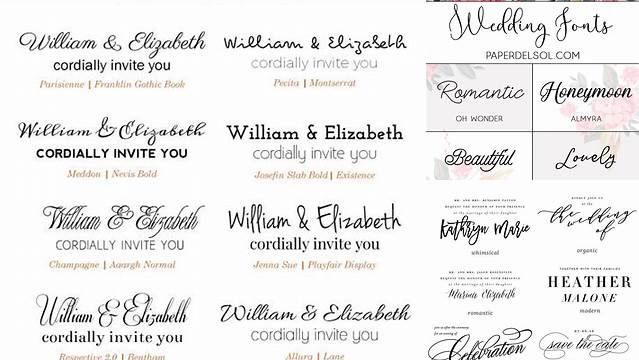
Elegant Wedding Fonts: A Google Fonts Guide
Choosing the right fonts for your wedding invitations is a crucial step in setting the tone for your big day. The typography you select can convey your wedding's style, from classic and elegant to modern and chic. With Google Fonts, you have access to a vast library of free, high-quality fonts that can help you create stunning wedding invitations without breaking the bank. In this guide, we'll explore some of the best Google Fonts for wedding invitations, offering tips and examples to inspire your choices. Let's dive in and discover how to make your invitations truly special, guys!
Why Choose Google Fonts for Your Wedding Invitations?
When planning a wedding, costs can quickly add up. Using Google Fonts is a fantastic way to save money without sacrificing quality. These fonts are not only free but also professionally designed and optimized for both print and digital use. This means your invitations will look beautiful whether they're printed on paper or viewed online. The variety available within Google Fonts is another significant advantage. Whether you're aiming for a traditional, romantic feel or a contemporary, minimalist look, you'll find fonts that fit your vision. Furthermore, Google Fonts are easy to access and use, making the design process smoother and more enjoyable. You can experiment with different font pairings and styles to achieve the perfect look for your wedding stationery. Remember, your invitations are the first glimpse your guests get of your wedding, so choosing the right fonts is essential to making a great first impression. Plus, using free resources like Google Fonts allows you to allocate more of your budget to other important aspects of your wedding, such as the venue, catering, or flowers. So, let's explore the world of Google Fonts and find the perfect typography to tell your unique love story!
Best Google Fonts for Wedding Invitations
Selecting the perfect fonts for your wedding invitations can feel overwhelming, given the plethora of options available. However, focusing on a few key styles can make the process more manageable. Here are some of the best Google Fonts categorized by style to help you create stunning invitations:
Elegant & Classic Fonts
For couples seeking a timeless and sophisticated look, classic fonts are an excellent choice. These fonts often feature elegant serifs and graceful curves, lending a touch of formality to your invitations. Some top picks include:
- Playfair Display: This font exudes elegance with its high contrast and delicate serifs. It’s perfect for headings and titles, adding a touch of luxury to your invitations. Pairing Playfair Display with a simpler sans-serif font for the body text can create a balanced and refined look. Imagine the names of the couple beautifully scripted in Playfair Display, immediately conveying a sense of classic romance and sophistication. It's a font that speaks volumes without being overly ornate, making it ideal for traditional weddings.
- EB Garamond: A revival of a classic typeface, EB Garamond offers a refined and scholarly aesthetic. Its elegant letterforms make it suitable for both headings and body text, ensuring readability while maintaining a sophisticated appearance. The subtle serifs and balanced proportions of EB Garamond contribute to a timeless feel, perfect for couples who appreciate understated elegance. Envision the entire invitation suite crafted in EB Garamond, from the save-the-dates to the thank-you notes, creating a cohesive and polished look that will impress your guests.
- Great Vibes: This beautifully flowing script font is perfect for adding a touch of romance and whimsy to your invitations. Use it for names, dates, or other important details to create a visually stunning effect. Great Vibes is particularly effective when used sparingly, allowing its elegance to shine without overwhelming the rest of the design. Think of the bride and groom's names gracefully intertwined in Great Vibes, setting a romantic tone for the entire celebration. It's a font that truly captures the joy and excitement of a wedding day.
Modern & Minimalist Fonts
If you're planning a contemporary wedding, minimalist fonts can help you achieve a clean and stylish look. These fonts typically feature sans-serif designs with clean lines and a focus on readability. Here are a few favorites:
- Montserrat: A versatile sans-serif font, Montserrat is known for its clean and geometric design. It works well for both headings and body text, providing a modern and sophisticated feel. The simplicity of Montserrat makes it a great choice for couples who prefer a minimalist aesthetic. Imagine a sleek invitation design using Montserrat for all the text elements, creating a cohesive and contemporary look that reflects a modern love story. It's a font that embodies understated elegance and timeless appeal.
- Raleway: With its elegant and slightly condensed letterforms, Raleway is another excellent choice for modern wedding invitations. It's particularly well-suited for headings and subheadings, adding a touch of sophistication without sacrificing readability. Raleway offers a subtle elegance that makes it ideal for couples who want a modern yet refined look. Think of using Raleway for the couple's names and wedding details, paired with a simpler sans-serif font for the body text, achieving a balanced and stylish design that will impress your guests.
- Open Sans: A highly readable and versatile font, Open Sans is a great option for body text. Its clean and simple design ensures that your invitations are easy to read, while its modern aesthetic complements a variety of styles. Open Sans is a workhorse font that can be used for virtually any type of wedding invitation, making it a reliable choice for couples who prioritize clarity and readability. Envision the bulk of your invitation text set in Open Sans, ensuring that all the essential details are conveyed clearly and effectively, while the overall design remains clean and modern.
Romantic & Whimsical Fonts
For couples who want to infuse their invitations with a touch of romance and whimsy, script and handwritten fonts are ideal. These fonts add a personal and intimate feel to your stationery. Consider these options:
- Mrs Saint Delafield: This elegant script font exudes romance and sophistication. It's perfect for adding a personal touch to your invitations, especially for names and headings. The flowing letterforms of Mrs Saint Delafield create a sense of timeless beauty, making it an excellent choice for couples who want to evoke a classic love story. Imagine the bride's name beautifully scripted in Mrs Saint Delafield, adding a touch of grace and elegance to the invitation. It's a font that captures the essence of romance and celebration.
- Parisienne: A stylish and flowing script font, Parisienne adds a touch of French elegance to your wedding invitations. Its delicate curves and graceful letterforms make it perfect for creating a romantic and whimsical feel. Parisienne is ideal for couples who want to infuse their invitations with a touch of Parisian charm. Think of using Parisienne for the wedding date and location, adding a touch of sophistication and whimsy to the overall design. It's a font that transports your guests to a world of romance and beauty.
- Italianno: This beautiful script font has a slightly more casual and playful feel than some of the other options, making it perfect for a relaxed or bohemian wedding. Italianno adds a touch of personality to your invitations, creating a warm and inviting atmosphere. Imagine using Italianno for the RSVP details, adding a friendly and approachable touch to the invitation. It's a font that reflects the joy and informality of a celebration among loved ones.
Tips for Pairing Google Fonts
Choosing two or three fonts that complement each other can significantly enhance the visual appeal of your wedding invitations. Here are some tips for effective font pairing:
- Contrast is Key: Pair a serif font with a sans-serif font to create visual interest. For example, use Playfair Display (serif) for headings and Montserrat (sans-serif) for body text. This contrast helps to distinguish different elements of your invitation and makes it more engaging to read. The combination of a classic serif font with a modern sans-serif font creates a balanced and harmonious design.
- Consider Hierarchy: Use different font sizes and weights to establish a clear hierarchy on your invitations. Headings should be larger and bolder than body text, and important details like the date and time should stand out. This helps guests quickly find the information they need and ensures that your invitations are easy to navigate. A well-defined hierarchy enhances readability and visual appeal.
- Limit Your Choices: Stick to two or three fonts at most to avoid a cluttered look. Too many fonts can make your invitations appear disorganized and overwhelming. Limiting your choices creates a cohesive and polished design that is both elegant and easy to read. Simplicity is key to creating a sophisticated wedding invitation.
How to Use Google Fonts for Your Wedding Invitations
Using Google Fonts is incredibly easy. Here’s a step-by-step guide to get you started:
- Browse Google Fonts: Visit the Google Fonts website (https://fonts.google.com/) to explore the extensive library of fonts. You can filter fonts by categories, styles, and languages to find the perfect options for your wedding invitations.
- Select Your Fonts: Once you’ve found a font you like, click on it to view more details and see examples of how it can be used. To add the font to your collection, click the “+” button next to the font name.
- Download or Embed: You can download the fonts to your computer and use them in design software like Adobe Photoshop or Illustrator. Alternatively, you can embed the fonts directly into your website or online invitation design by copying the provided code snippet.
- Integrate into Your Design: Use your chosen fonts in your invitation design, paying attention to font size, weight, and spacing. Experiment with different combinations and layouts to achieve the desired look. Remember to consider readability and ensure that all the essential details are clear and easy to read.
Examples of Wedding Invitation Designs with Google Fonts
To give you some practical inspiration, here are a few examples of wedding invitation designs using Google Fonts:
- Classic Elegance: Pair Playfair Display for the couple's names and wedding date with EB Garamond for the body text. This combination creates a timeless and sophisticated look that is perfect for a traditional wedding.
- Modern Minimalism: Use Montserrat for all text elements to achieve a clean and contemporary design. Add a pop of color or a simple graphic to enhance the modern feel.
- Romantic Whimsy: Combine Mrs Saint Delafield for the names and Open Sans for the details. This pairing adds a touch of romance while maintaining readability.
FAQs about Google Fonts for Wedding Invitations
What are some good Google Font pairings for wedding invitations?
Some excellent Google Font pairings for wedding invitations include Playfair Display with Montserrat, EB Garamond with Open Sans, and Mrs Saint Delafield with Raleway. These combinations offer a balance of elegance, readability, and visual appeal.
Are Google Fonts really free to use for commercial projects?
Yes, Google Fonts are free to use for both personal and commercial projects. This makes them an ideal choice for wedding invitations and other stationery, allowing you to save money without sacrificing quality.
How do I know if a Google Font will print well?
All Google Fonts are professionally designed and optimized for both print and digital use. However, it’s always a good idea to test print a sample of your invitation design to ensure that the fonts look crisp and clear on paper. Pay attention to font size and weight to ensure readability.
Can I use Google Fonts for my wedding website as well?
Absolutely! Google Fonts are perfect for wedding websites. You can easily embed them into your site to create a cohesive look across all your wedding stationery, from invitations to thank-you notes.
Final Thoughts on Google Fonts for Wedding Invitations
Choosing the right fonts is essential for creating wedding invitations that reflect your style and set the tone for your special day. Google Fonts offer a fantastic resource for finding beautiful, high-quality typography that is both free and easy to use. By exploring the various styles and font pairings discussed in this guide, you can create stunning invitations that will impress your guests and make your wedding truly memorable. So, go ahead and dive into the world of Google Fonts and let your creativity flow!